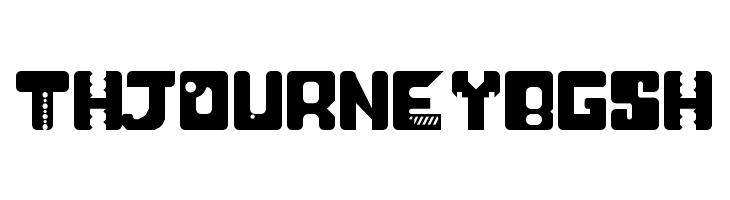
( Bryan Augusto )
A bold, futuristic font with geometric shapes and sci-fi elements.
( Bryan Augusto )
A futuristic, geometric font with bold, angular letterforms and unique cutouts.
( Bryan Augusto )
A modern, geometric font with clean lines and a futuristic aesthetic.
( Bruno de Souza Leão - www.brunosouzaleao.com.br )
A playful, hand-drawn font with bold strokes and a whimsical style.
( Brixdee - jack-oatley.com/ )
A playful, handwritten-style font with a chalk-like texture.
( Brixdee - jack-oatley.com/ )
A geometric, block-like font with a futuristic and digital aesthetic.
( Brixdee - jack-oatley.com/ )
A modern, geometric font with circular and abstract elements.
( Brixdee - jack-oatley.com/ )
A pixelated, retro digital display font with a bold, geometric style.
( Brixdee - jack-oatley.com/ )
A bold, geometric font with a stencil-like, segmented design.
( Brixdee - jack-oatley.com/ )
A bold, angular font with a futuristic and edgy design.